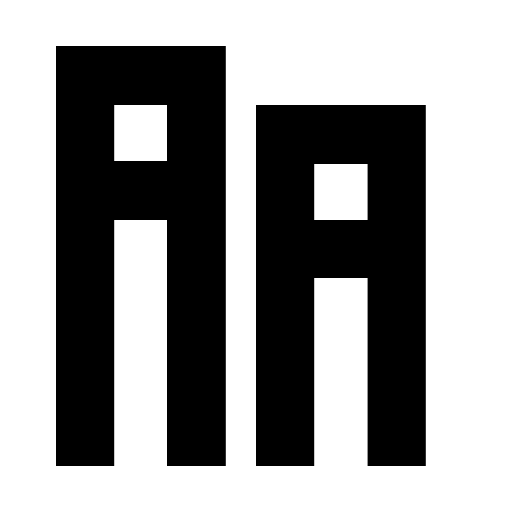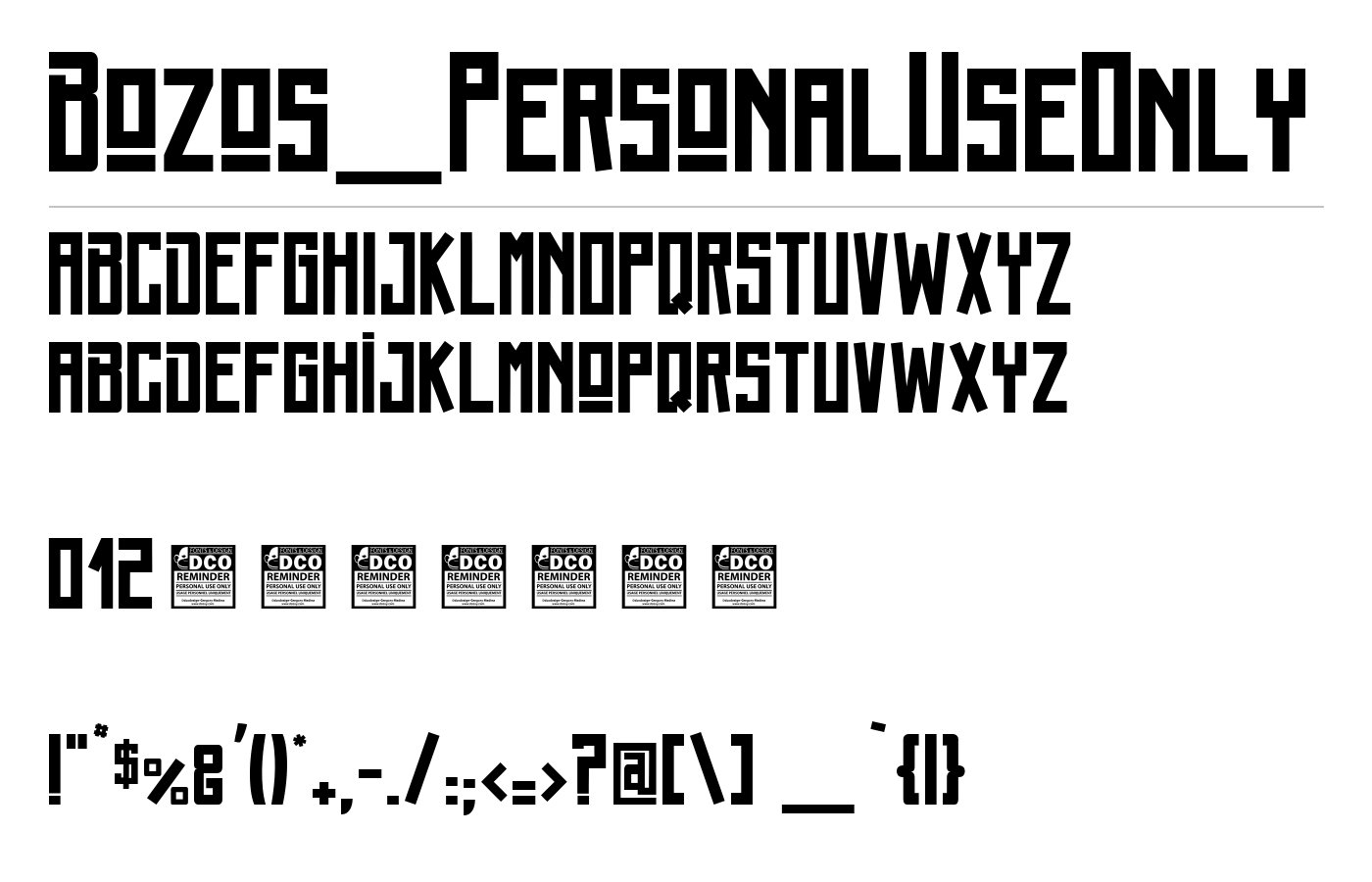
Bozos_PersonalUseOnly is a bold, condensed sans-serif font with a strong geometric and modular structure, characterized by its tall, narrow letterforms and thick strokes with minimal contrast. Its rigid, almost mechanical style gives it a modern, edgy feel that works well for eye-catching headlines, posters, or branding that seeks a striking, urban vibe. This font is ideal for designs that want to convey strength, uniqueness, and a contemporary edge.
Bozos_PersonalUseOnly Font
About Bozos_PersonalUseOnly Font